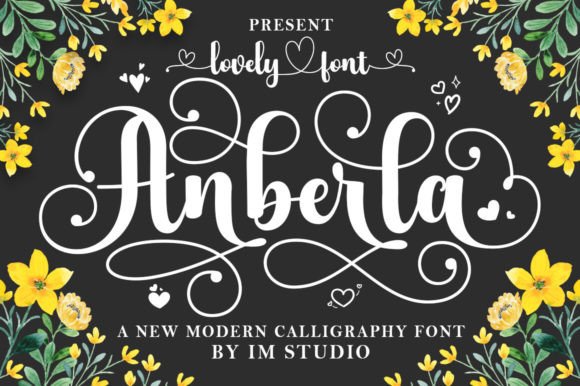
The Designer’s Dream Font: Anberla
I’ll never forget the moment I stumbled upon the perfect font for a client’s branding project. I had been searching for what felt like hours, scrolling through endless pages of Google results, and testing font after font in Canva. But nothing seemed quite right – until I discovered Anberla. This modern, flowing handwritten font stole my heart with its varied bases, smooth lines, beautiful glyphs, and stunning alternatives. In this article, I’ll share my love for Anberla, its features, and how to make the most of it in your designs.
An Honest Review of Anberla
What I Love About Anberla
- ✨ Versatile style: Anberla’s unique blend of modern and handwritten elements makes it perfect for a wide range of design projects, from branding and packaging to social media graphics and invitations.
- 💫 Beautiful glyphs and alternatives: Anberla comes with a range of gorgeous glyphs and stylistic alternates, allowing you to add an extra touch of personality to your designs.
- 🌈 Colorful possibilities: With Anberla, you can experiment with different colors, textures, and patterns to create truly unique designs.
While Anberla is an amazing font, there are a few things to keep in mind:
- 🤔 Legibility at small sizes: As with many script fonts, Anberla may become less legible at very small sizes. Be sure to test it in your design to ensure it works well for your specific project.
- ⚠️ Pairing with other fonts: As with any font, be mindful of pairing Anberla with other fonts to avoid visual overload. Stick to one or two complementary fonts to create a cohesive look.
The Backstory of Anberla
Anberla was designed with the goal of creating a modern, flowing handwritten font that’s both elegant and approachable. The font’s creator drew inspiration from a range of sources, including classic script fonts, modern calligraphy, and handwritten lettering. The result is a font that’s both versatile and beautiful, perfect for a wide range of design projects.
Q: Is Anberla suitable for body text?
While Anberla is a beautiful font, it’s best suited for headings, titles, and short paragraphs. For body text, you may want to choose a font that’s more legible and easier to read.